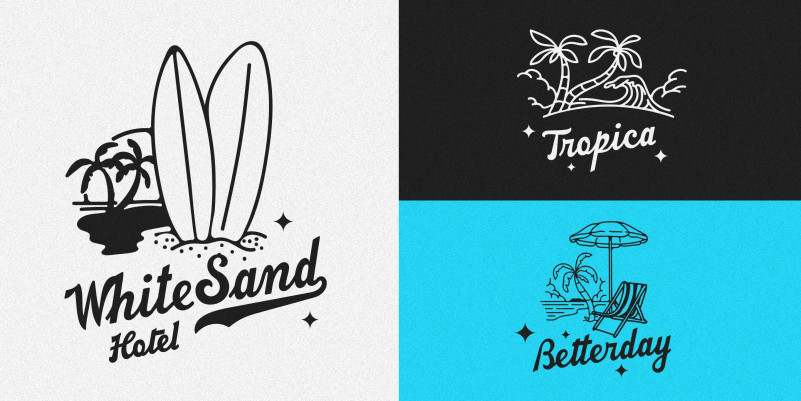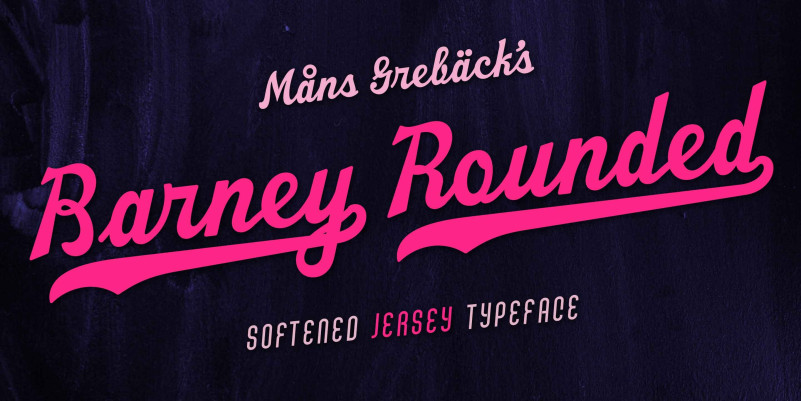
Barney Rounded Font
Barney Rounded Script Font, It can easily be matched to an incredibly large set of projects, so add it to your creative ideas and notice how it makes them stand out!
Use underscore _ to make a swash.
Example: Letter_
Use multiple underscores to make longer swashes.
Example: Football____